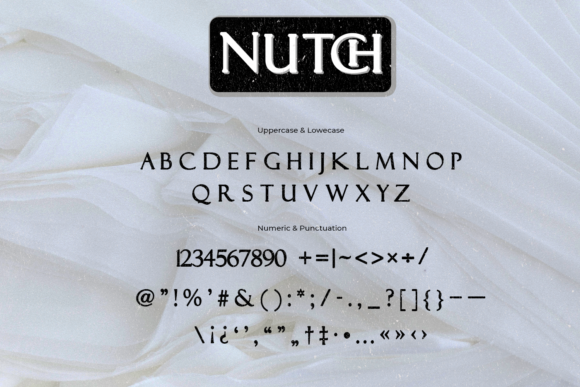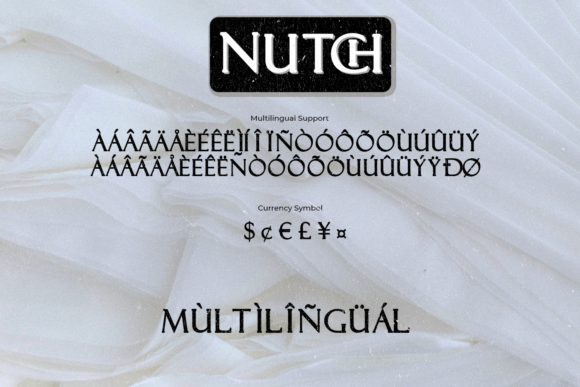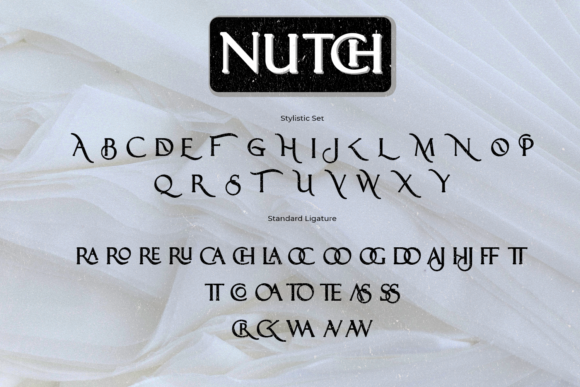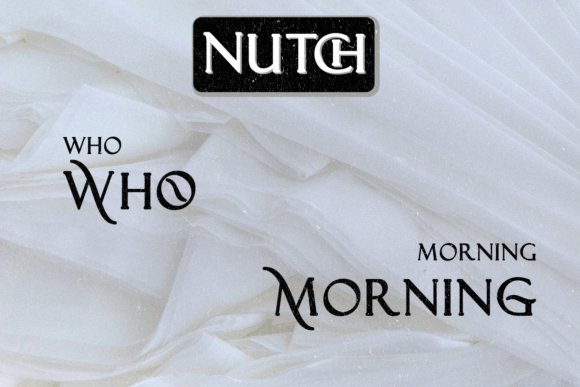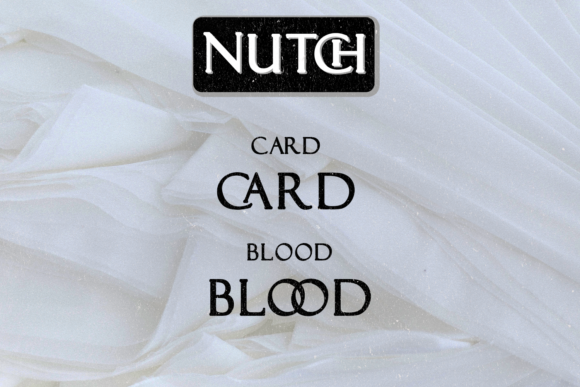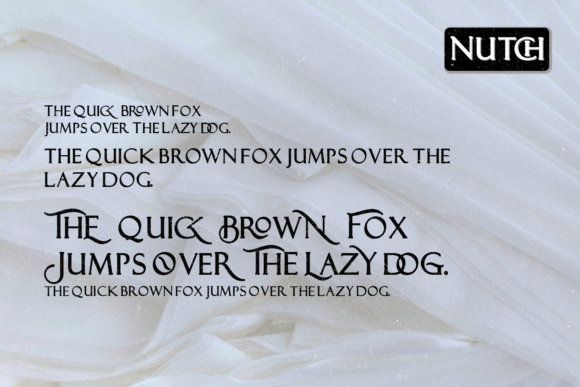
Introduction to Nutch Font Font
Fonts play a crucial role in design, and the Nutch Font font is a typeface that brings both character and versatility to any project. Whether you’re working on a branding project, a website, or a print design, the Nutch Font font offers a unique style that can elevate your work.
Nutch is a fabulous, elegant, and modern serif font thatβll engage your audience and make your branding stand out.
This stylish font can be used for a host of different content needs and projects Perfect for social media branding projects, fashion designs, printed quotes, or even as a stylish text overlay to any background image and many more.
Key Features of Nutch Font Font
Why Choose Nutch Font Font?
The Nutch Font font is more than just a typeface β it’s a design tool that helps you communicate your message with style and clarity. Its unique character set and versatile design make it suitable for a wide range of applications, from elegant invitations to bold headlines.
With its carefully crafted letterforms and balanced proportions, the Nutch Font font ensures readability and visual appeal across all mediums.
What makes Nutch Font font special?
The Nutch Font font stands out with its unique design, exceptional readability, and versatility across various design applications.